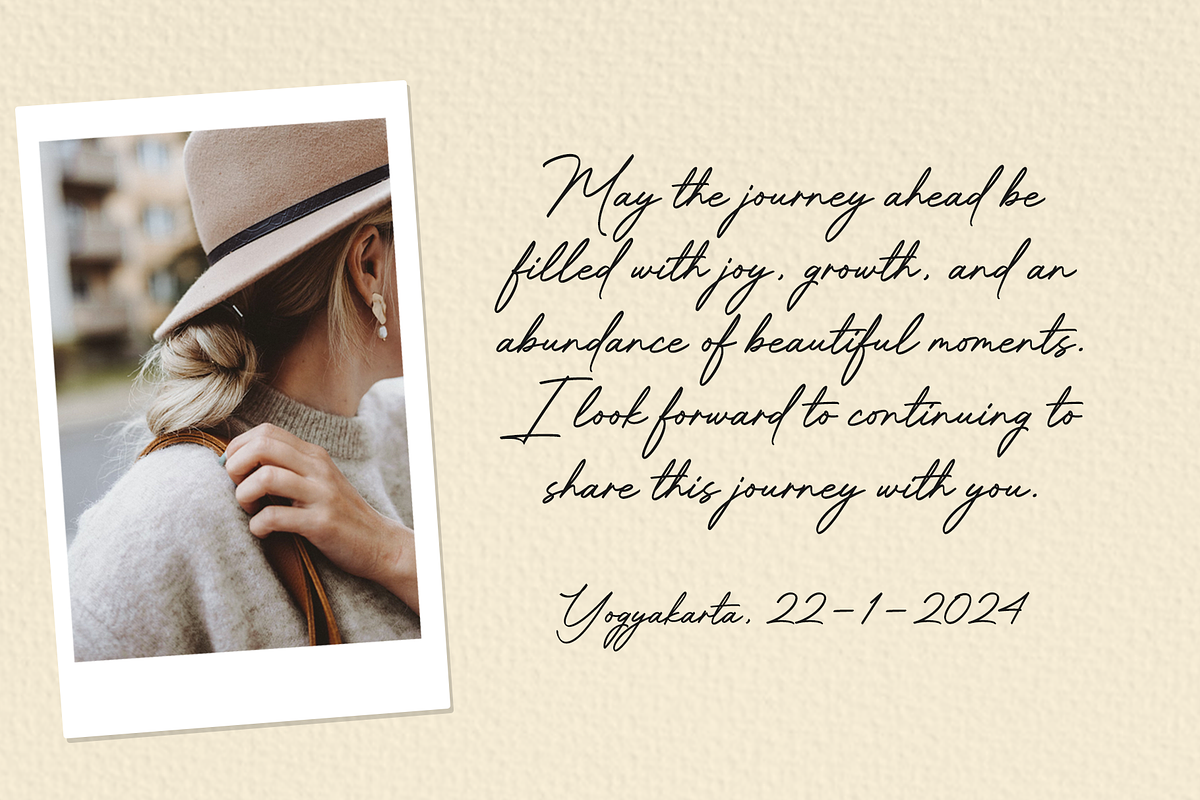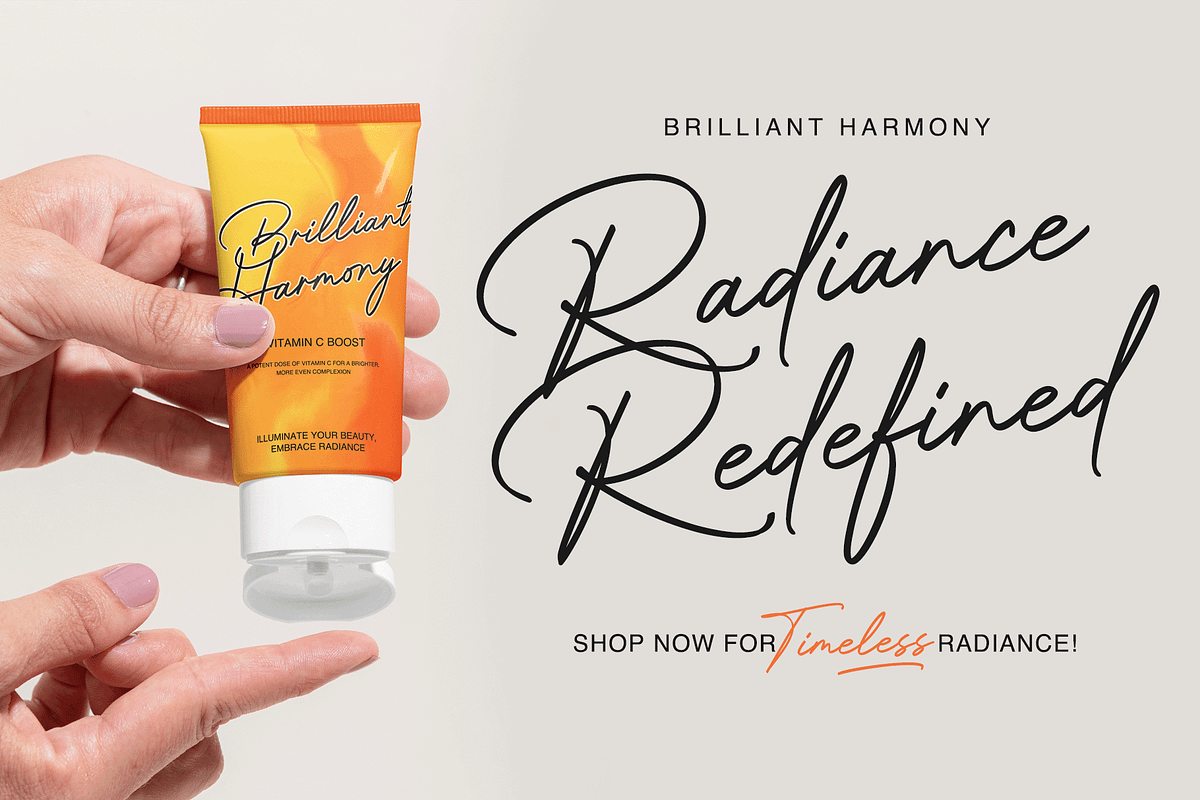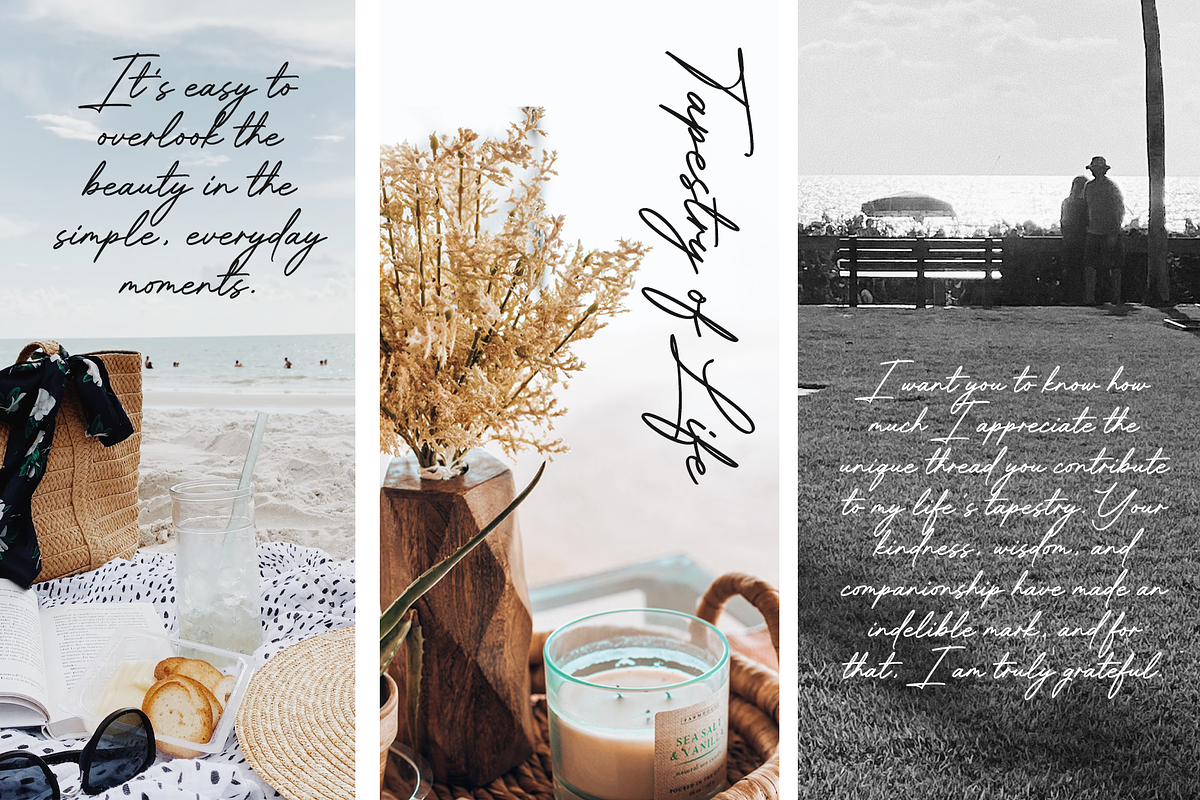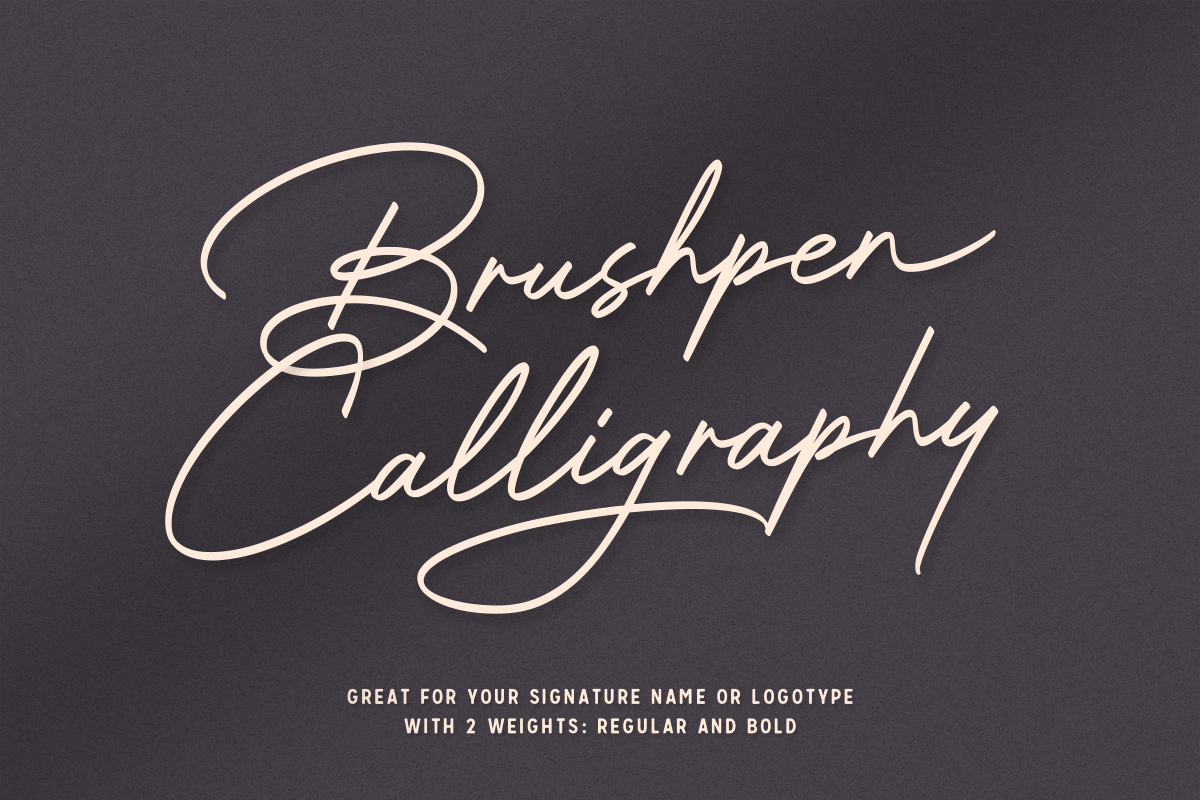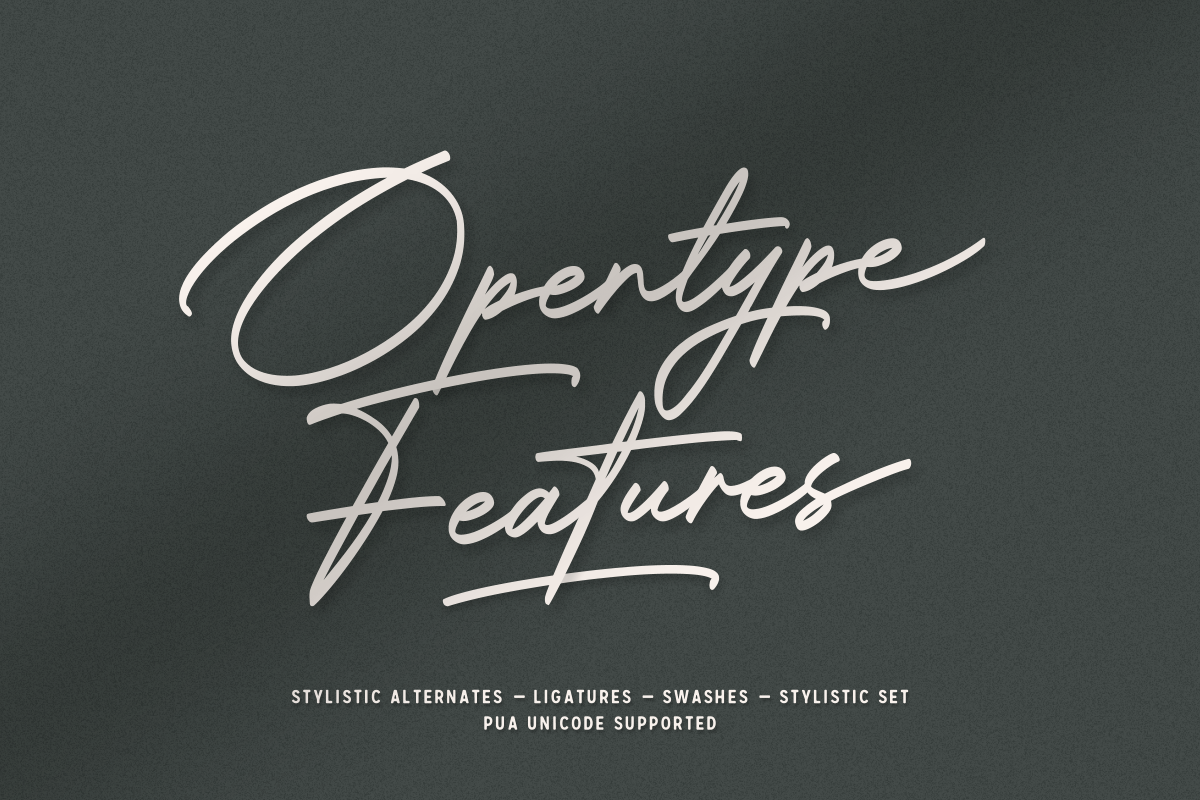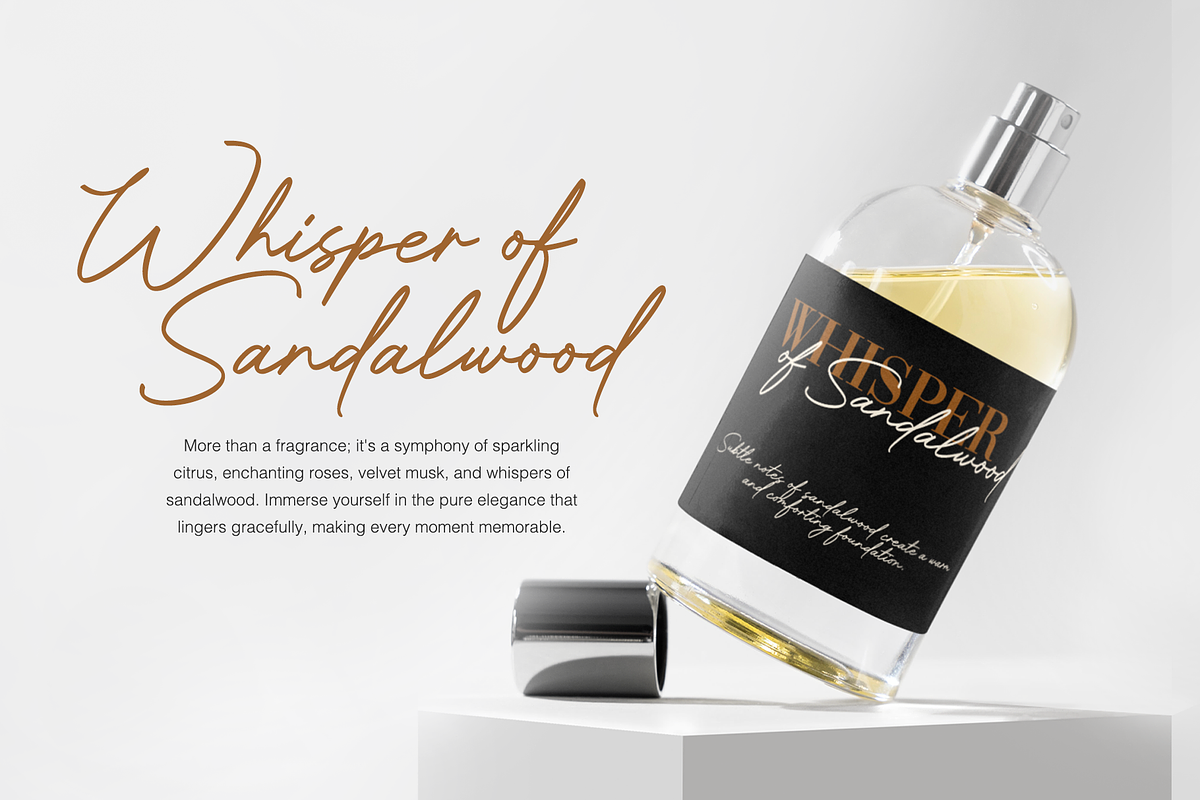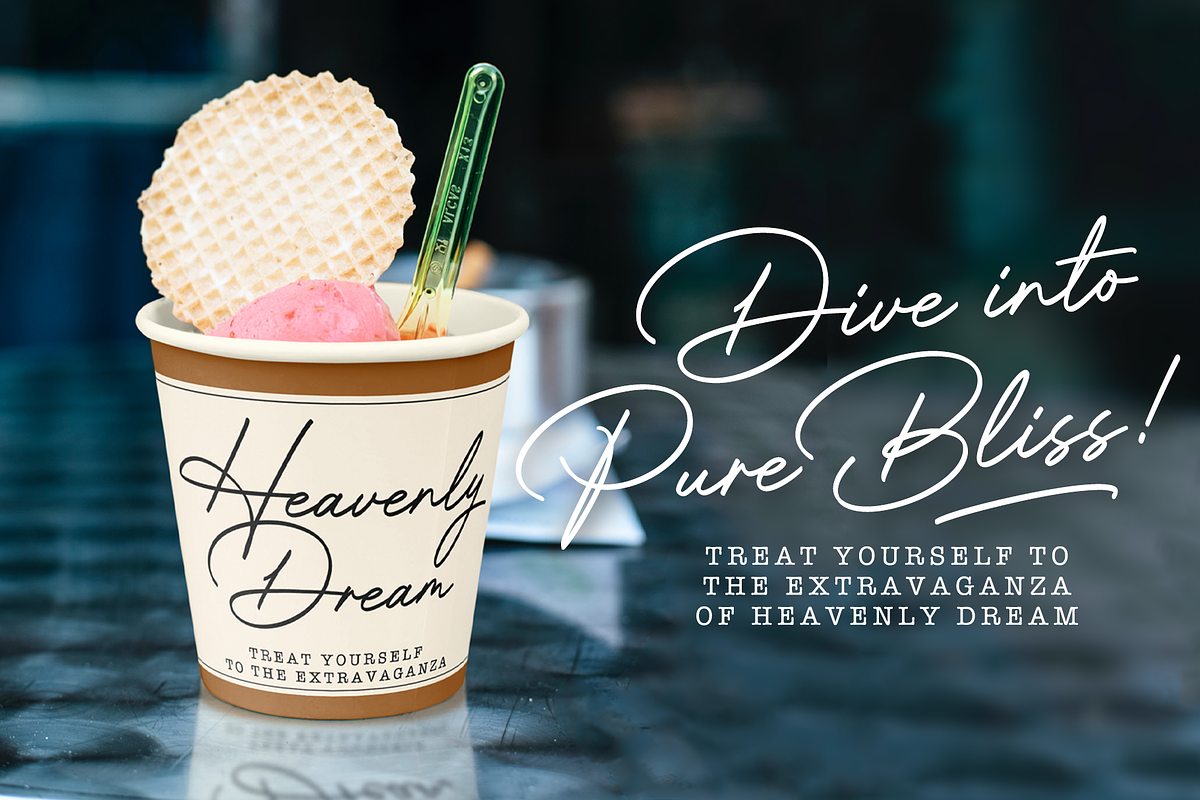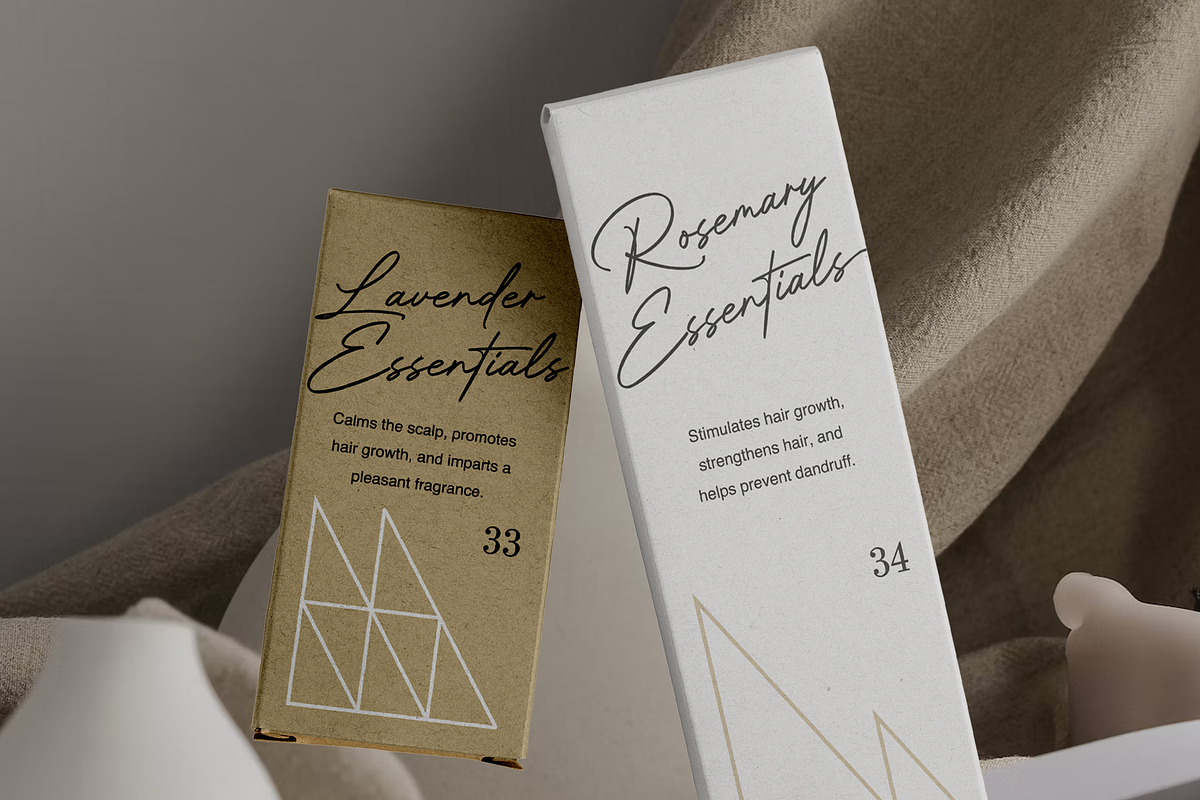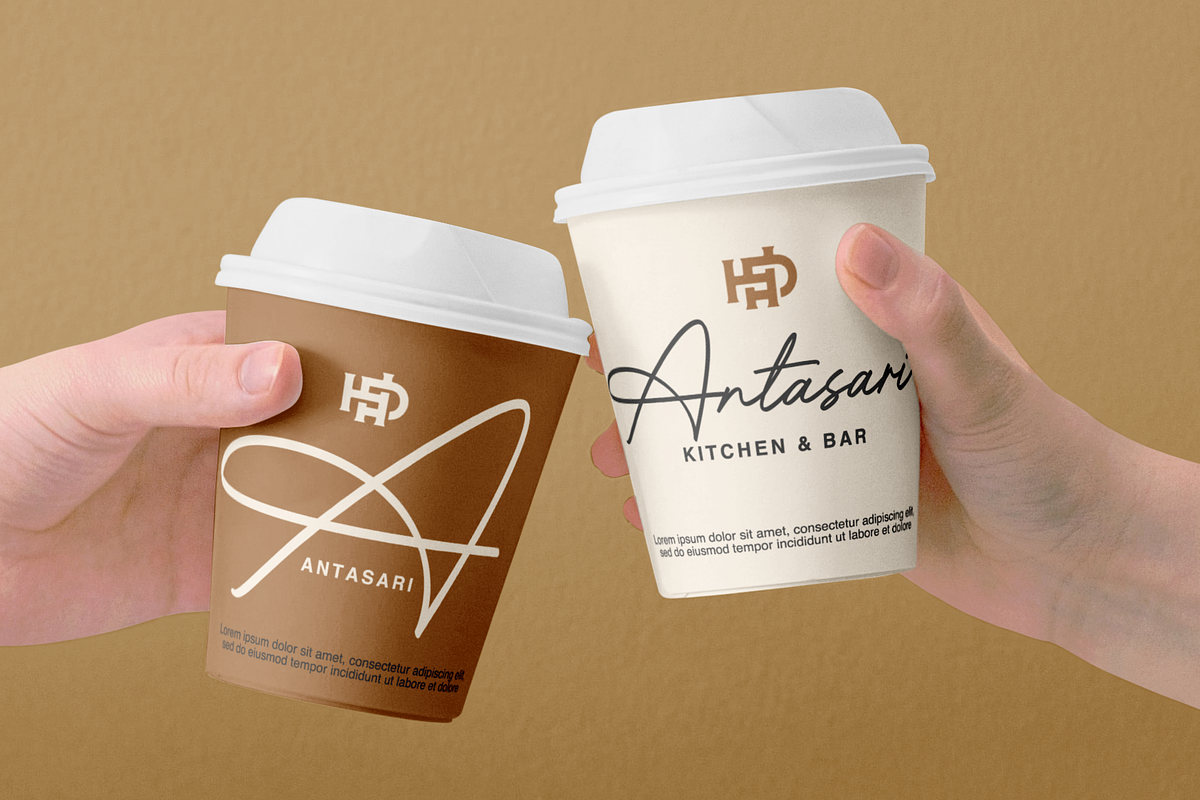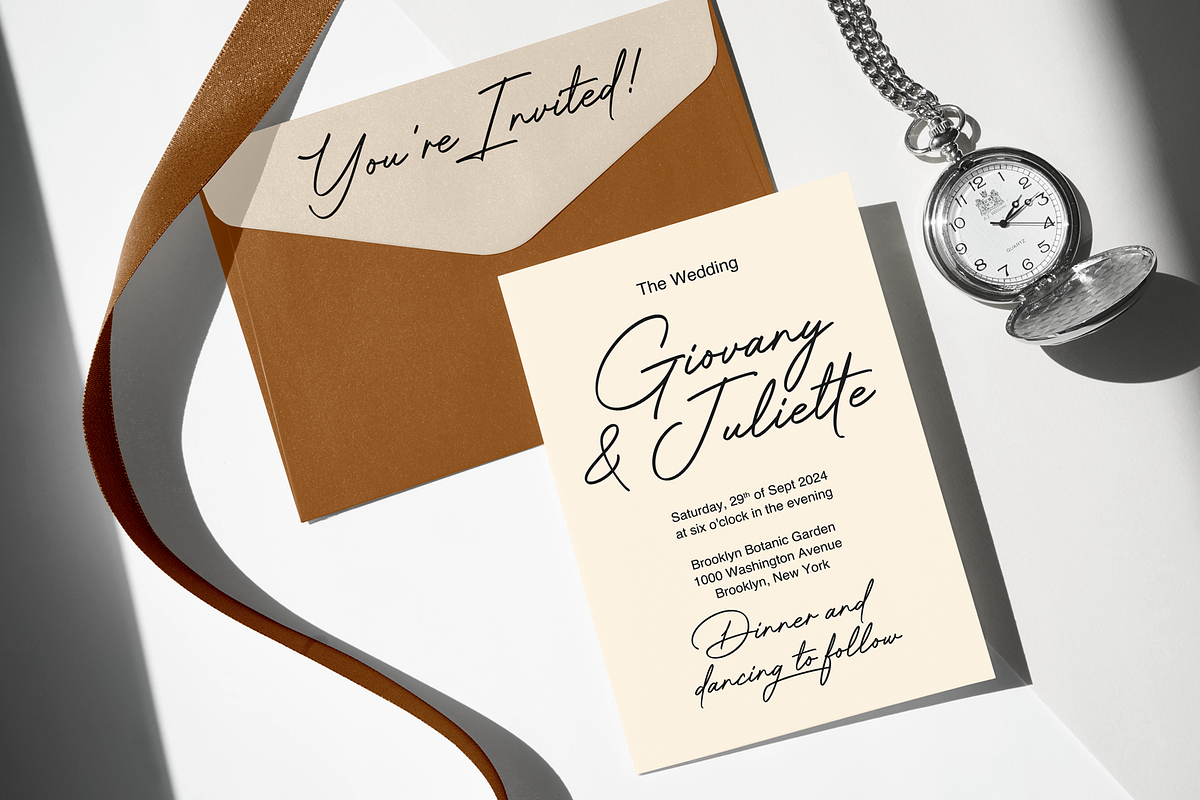
Bradford Signature
Bradford Signature , a Font that resemble handwriting, made from a thin brushpen. A fun and playful font with a bouncy baseline and a casual feel, give you a personal touch to designs and convey a sense of warmth and friendliness. It is perfect for invitations, name cards, greeting cards, and other creative projects, ranging from neat and elegant to playful and whimsical.